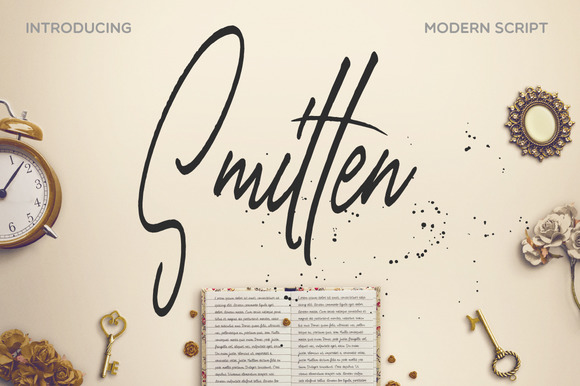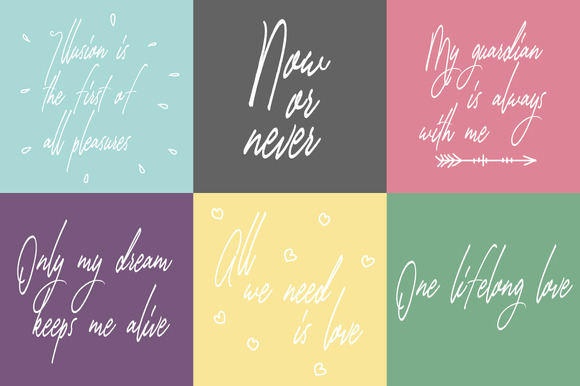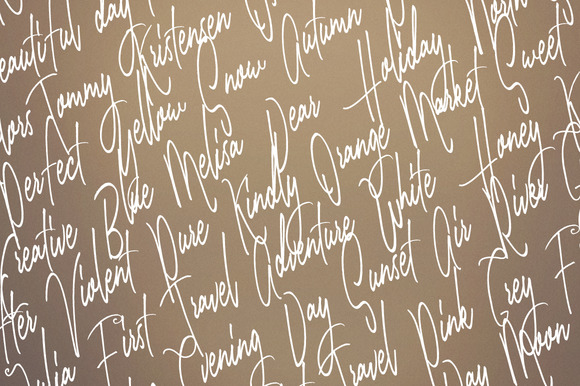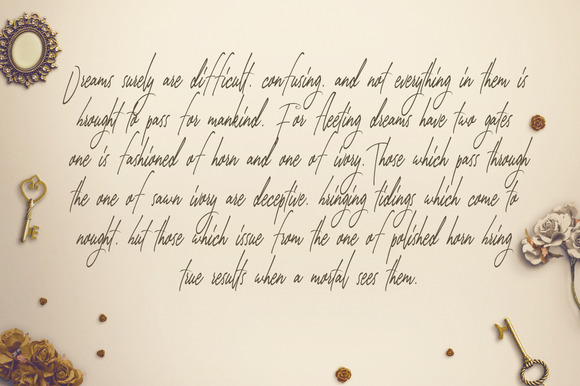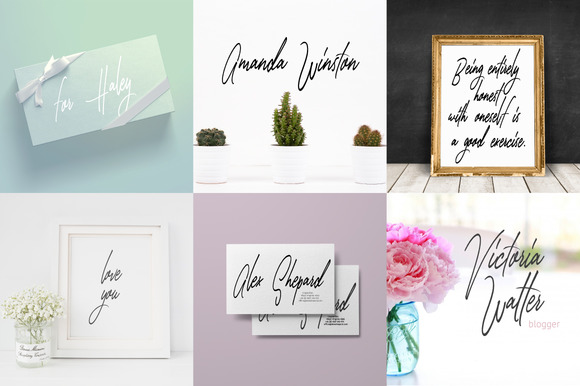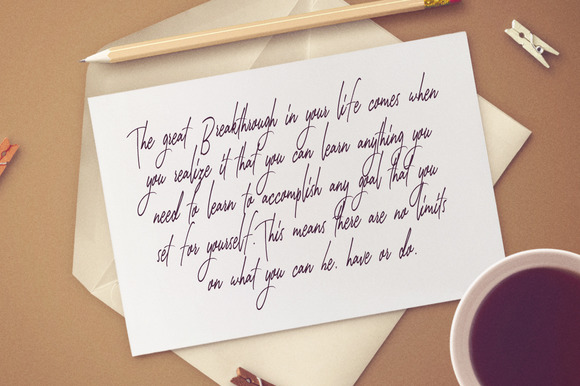
Smitten Font
About Smitten Font
Smitten is a handwritten calligraphy script font and will give your designs a modern and elegant touch. It can be used for various purposes such as headings, logos, invitations, t-shirt designs, greeting cards, posters, labels, book covers, brochures, and much more!